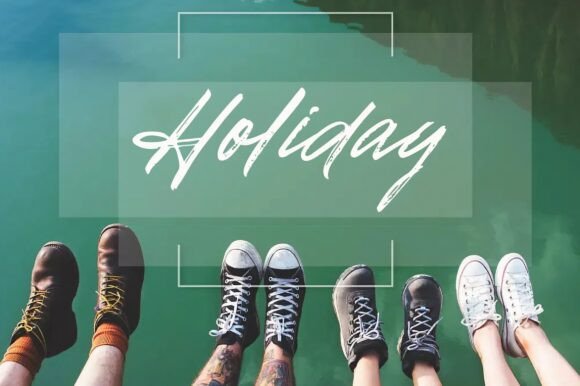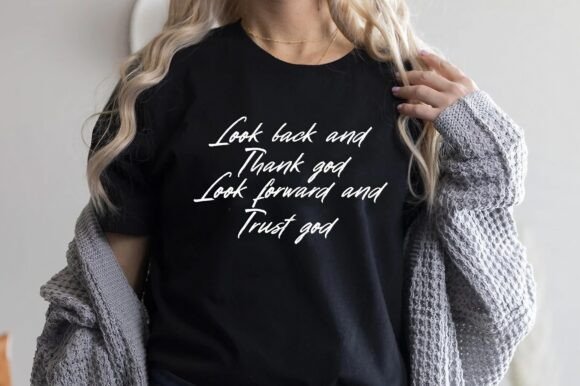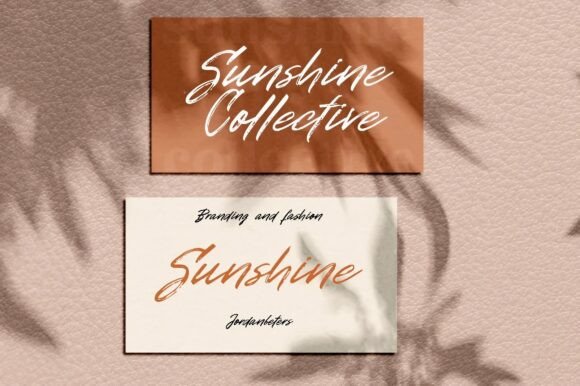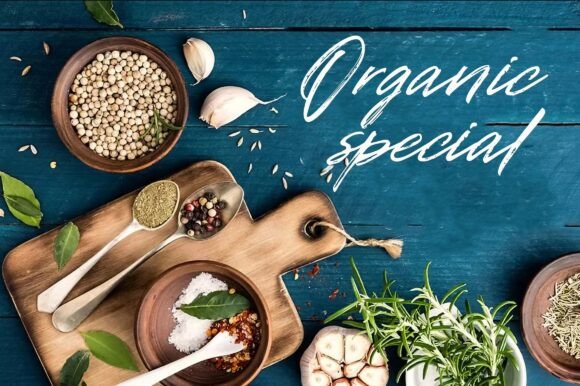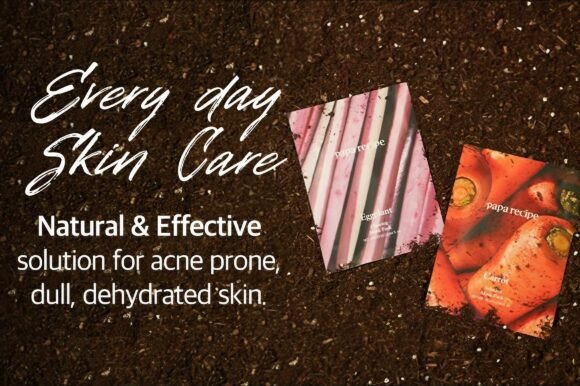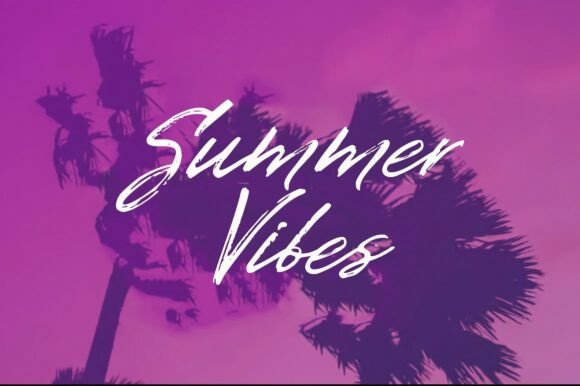
Introduction to Mothalisa Font
Have you ever stumbled upon a beautifully handwritten note that makes you feel like you’re the only person in the world? Maybe it was a love letter from a secret admirer or a heartfelt thank-you note from a friend. Whatever it was, the magic lies in the imperfections, the fluid strokes, and the personal touch that makes it truly unique. That’s exactly what Mothalisa Font embodies – a captivating blend of elegance and personality that’s sure to add a personal touch to any creative project.
As a designer, you’re always on the lookout for that special something that sets your work apart from the rest. That’s where Mothalisa Font comes in – a high-quality design resource that’s perfect for adding a touch of sophistication and approachability to your branding, invitations, or creative projects. With its smooth letterforms and well-spaced characters, Mothalisa Font ensures readability without compromising on style, making it a valuable addition to any design arsenal.
Key Features of Mothalisa Font
- Unique characteristics: Mothalisa Font’s elegant and sophisticated design makes it perfect for luxury brands, fashion, and high-end creative projects
Honest Review: Mothalisa Font
One of the standout features of the Mothalisa Font is its high quality design. The font is clean, modern, and versatile, making it suitable for a wide range of applications, from digital graphics to print materials. I particularly appreciate the transparent background option, which gives designers the flexibility to customize their designs as needed.
- Modern and versatile
- Some characters may be difficult to read at small font sizes
- Limited language support
Overall, I’m impressed with the Mothalisa Font, and I would definitely recommend it to designers looking for a high-quality, free font. Just be aware of the potential limitations mentioned above.
Mothalisa Font
The Mothalisa Font is ideal for a wide range of design projects, including branding, advertising, and digital media. Its high-quality design and transparent background make it perfect for creating stunning text overlays and graphics that stand out from the crowd.